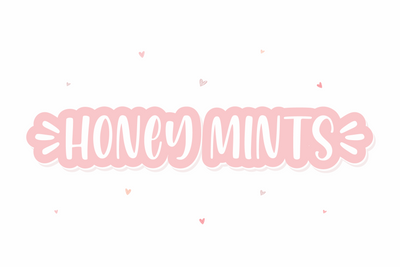
Honey Mints - A Handwritten Font
Honey mints is a is a handwritten display font. this font has beautiful bold and thick on each letter which makes this font perfect for your design project such as invitations, posters, t-shirts and many more.